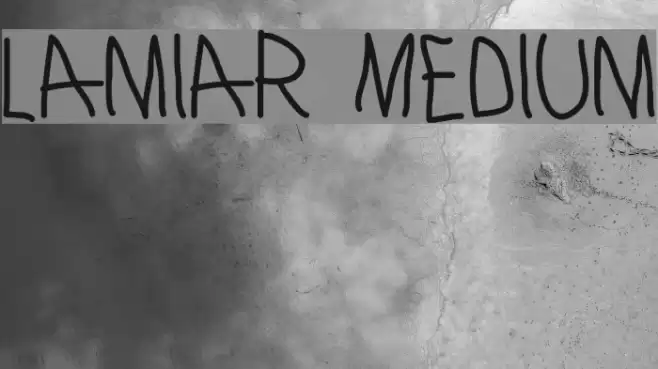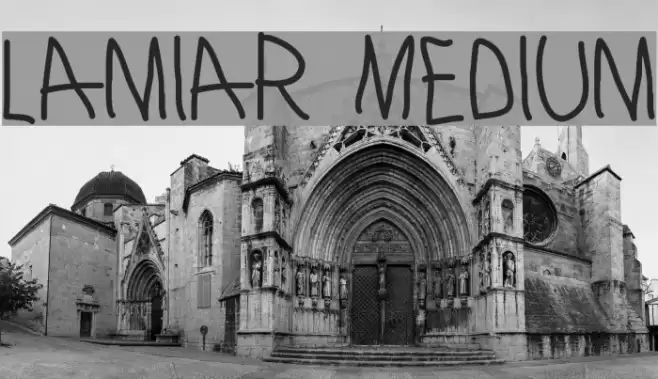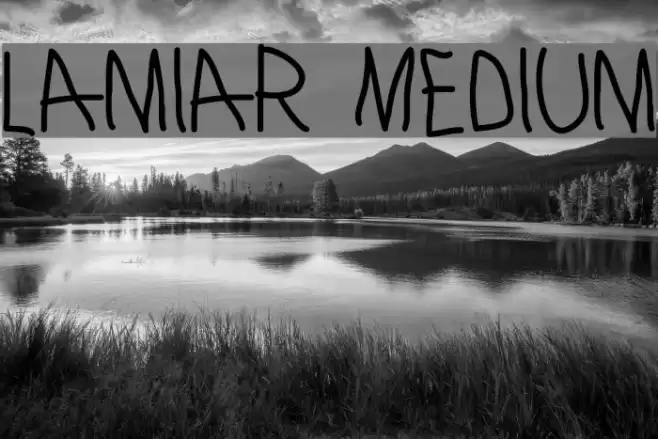
Lamiar Medium Font
Lamiar Medium Description
This font features a playful and casual handwritten style, characterized by its irregular strokes and slightly uneven baseline. The letters have a natural flow, giving them a personal and informal touch. The uppercase and lowercase letters maintain a consistent style, with rounded edges and a slightly narrow form. The numerals are clear and legible, matching the overall aesthetic of the alphabet. Special characters are included, maintaining the same whimsical and approachable design. This font is perfect for projects that require a friendly and approachable look, such as children's books, casual invitations, or personal blogs.
A playful, handwritten font with a casual and friendly style from Uncategorized fonts.
- Proposed Projects: Ideal for children's books, casual invitations, personal blogs, and informal branding.
- Overall Style: Casual
- Use Case: Headlines, Informal text, Branding